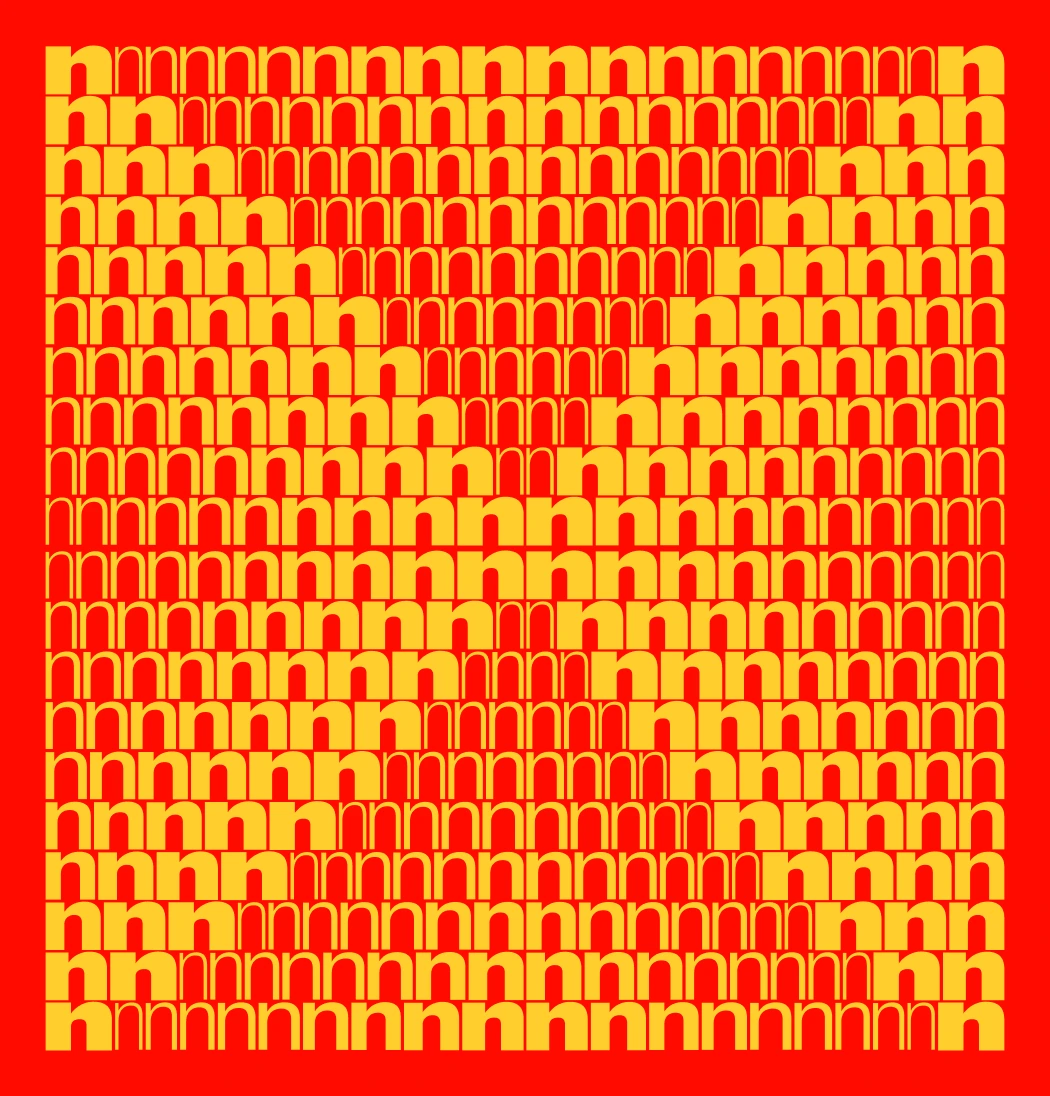
This groundbreaking digital experience, launched in anticipation of the Exat typeface’s full release in 2026, redefines how typefaces are presented and engaged with online. Commissioned by Hot Type, a publisher known for pushing the boundaries of contemporary typography, Studio Size, in collaboration with RISE2 Studio, has engineered a promotional platform that transforms the conventional font specimen into an immersive, interactive journey. The microsite showcases Exat, one of the most ambitious typeface releases slated for 2026, through dynamic interactions that treat typography as a living, responsive entity rather than static decoration.
A New Paradigm in Typographic Presentation
The Exat variable font is not merely a collection of static styles; it is a meticulously crafted system designed to offer unparalleled flexibility and expression. Spanning Condensed, Normal, and Wide subfamilies across seven distinct weights, the typeface boasts an impressive 1,715 glyphs, supporting both Latin and Cyrillic scripts. Such a comprehensive and complex typographic offering demanded an equally innovative showcase. Studio Size’s response is a microsite that goes beyond traditional demonstrations, inviting users to directly manipulate and experience the font’s vast capabilities through intuitive, behavioral interactions.
The core philosophy guiding the microsite’s design is that interaction should be intrinsic to understanding the typeface. Each section of the site is engineered to introduce a specific axis of the type system, transitioning smoothly before any sense of repetition sets in. A pivotal design choice is the direct correlation between scroll position and the state of the typography. This means that reversing a scroll motion instantly restores previous forms and interactions, offering a seamless and intuitive exploratory experience that feels more like playing an instrument than navigating a webpage. The site intelligently balances moments of calm, legible reading with dense, expressive displays, effectively managing visual fatigue while demonstrating the full expressive range of the Exat system.
The Exat Typeface: A Modernist Legacy Reimagined
The Exat typeface itself is a monumental undertaking, distinguished by its expansive stylistic range and its profound historical inspiration. Its name and aesthetic spirit are derived from EXAT 51, a Croatian modernist collective active in the early 1950s. This collective, whose name is an acronym for Experimental Atelier 51, was a pivotal force in Yugoslav art and design, advocating for the synthesis of art and life, and promoting experimental approaches in painting, sculpture, architecture, and graphic design. EXAT 51’s members, including figures like Vjenceslav Richter, Ivan Picelj, and Aleksandar Srnec, championed geometric abstraction, constructivism, and functionalism, challenging the prevailing academic and socialist realist dogmas of their time. They believed in the integration of different artistic disciplines and the application of artistic principles to industrial design and everyday life, viewing design as a tool for social progress.
Exat Variable Font Microsite Redefines Type as a Living System
The Exat typeface encapsulates this spirit of modernist experimentation and geometric rigor. Its clean lines, precise angles, and adaptable forms echo the constructivist principles that EXAT 51 championed. By drawing inspiration from such a significant historical movement, Hot Type imbues Exat with a legacy of innovation and a commitment to pushing artistic and functional boundaries. This historical context is crucial for understanding the typeface’s design rationale, linking its contemporary flexibility to a modernist heritage of structured creativity and systematic design. The 21 distinct styles, meticulously crafted across various weights and widths, are not arbitrary but rather a contemporary interpretation of EXAT 51’s foundational ideas, translated into the digital realm of variable fonts.
Studio Size’s Vision: Typography as Dynamic Behavior
Studio Size’s approach to designing the microsite was to transcend the conventional display of font samples. Their central tenet, "typography as behavior rather than decoration," manifests throughout the site, transforming passive viewing into active engagement. This philosophy is most vividly demonstrated in the microsite’s opening sequence: a mesmerizing glyph grid. Here, a field of lowercase characters dynamically responds to the user’s cursor position. As the cursor moves, characters within seven concentric rings of influence shift in weight and color. The outermost ring renders characters in a subtle dark blue at their minimum weight, gradually transitioning to vibrant red at maximum weight for characters closest to the cursor. This immediate, intuitive feedback loop requires no instructional text; the behavior is self-explanatory, drawing users into an exploratory dance with the typeface’s inherent variability.
Further interactive demonstrations deepen the user’s understanding of Exat’s capabilities. A dedicated "Design Space" section facilitates controlled comparisons. By simply hovering over style names, users can witness specimen text morphing seamlessly between different weights and widths in real-time. This interactive comparison highlights the fluidity and range of the variable font technology, allowing designers to grasp the subtle nuances and dramatic shifts possible within the Exat family. Complementing these precise interactions, large numerals perform elegant sine-wave patterns, their movements intricately tied to the user’s scroll speed. This adds a temporal dimension to the experience without competing for attention with the typeface itself, subtly reinforcing the idea of dynamic transformation. Sparse, yet impactful, three-dimensional reveals punctuate the experience, serving as visual metaphors that reference the geometric and architectural spirit of EXAT 51 without overwhelming the page with unnecessary complexity. These carefully integrated elements ensure that the user’s journey through the microsite is not only informative but also aesthetically captivating and intellectually stimulating.
Technological Foundation: Powering the Interactive Showcase
The creation of the Exat microsite is a testament to sophisticated web development, leveraging a powerful combination of platforms and libraries to achieve its fluid, interactive nature. Developed on the robust WordPress content management system, the site benefits from its flexibility and extensibility. However, the true magic of the interactivity lies in its custom front-end development, executed by RISE2 Studio, an agency known for its technical prowess in complex web animations and interactive experiences.
The Variable Font Revolution
At the heart of Exat’s technological prowess is the variable font format. Introduced as part of the OpenType 1.8 specification in 2016, variable fonts represent a significant leap forward in digital typography. Unlike traditional static fonts, which require separate files for each style (e.g., regular, bold, italic), a variable font contains an entire range of styles within a single file. This is achieved by defining "axes" of variation—such as weight, width, slant, or optical size—along which the typeface can smoothly interpolate. For Exat, this means that its Condensed, Normal, and Wide subfamilies, across seven weights, are all accessible from a single, optimized file. The benefits are manifold:
Exat Variable Font Microsite Redefines Type as a Living System
1. Reduced File Size: A single variable font file is often significantly smaller than a collection of static font files covering the same range, leading to faster loading times and improved website performance.
2. Unparalleled Design Flexibility: Designers gain granular control over typographic parameters, allowing for custom instances of a typeface that precisely fit layout requirements or creative visions, moving beyond predefined styles.
3. Enhanced Responsiveness: Type can adapt dynamically to different screen sizes, resolutions, and even user interactions, ensuring optimal readability and aesthetic consistency across diverse devices.
4. Rich Animation Potential: The ability to smoothly interpolate between design variations opens up new avenues for typographic animation, as powerfully demonstrated by the Exat microsite.
The Architecture of Interactivity
To bring Studio Size’s vision to life, RISE2 Studio deployed a suite of cutting-edge JavaScript libraries. The GreenSock Animation Platform (GSAP) serves as the core animation engine. Renowned for its performance, reliability, and comprehensive feature set, GSAP is the industry standard for high-performance web animations. Its ability to animate virtually any CSS property, SVG, DOM attribute, or JavaScript object with precision and fluidity makes it ideal for the complex, synchronized movements seen on the Exat microsite.
Integrated with GSAP is ScrollTrigger, a powerful GSAP plugin that allows developers to create stunning scroll-based animations with remarkable ease and control. ScrollTrigger is instrumental in the microsite’s core functionality, where scroll position directly dictates typographic state. This allows for complex sequences of animations to be precisely synchronized with the user’s scrolling, creating a narrative flow that is both engaging and intuitive.
Finally, Lenis provides the smooth scrolling experience that underpins the entire interaction. Traditional browser scrolling can often feel abrupt or choppy, especially when dealing with intricate animations. Lenis, a lightweight JavaScript library, replaces the default scroll behavior with a custom, highly optimized smooth scrolling mechanism. This ensures that every scroll action feels fluid, natural, and perfectly synchronized with the GSAP and ScrollTrigger animations, contributing significantly to the microsite’s polished and premium feel. This combination of WordPress for content management, GSAP for animation, ScrollTrigger for scroll-based timing, and Lenis for smooth user input creates a robust and highly performant foundation for the immersive typographic showcase.
A Collaborative Endeavor: Voices Behind the Project
The success of the Exat microsite is a testament to the seamless collaboration between creative visionaries and technical experts. While no direct quotes are available at this pre-release stage, it is possible to infer the perspectives of the key players involved.
Hot Type, the font foundry, likely envisioned a promotional campaign that would truly reflect the ambition and innovation embedded in the Exat typeface. A representative from Hot Type might express: "When we embarked on developing Exat, our goal was to create a typeface that pushed the boundaries of modern typography, inspired by a rich historical lineage. We knew a traditional static specimen wouldn’t do it justice. We needed a showcase that was as dynamic and forward-thinking as the font itself, something that would allow designers to truly feel the versatility and power of variable fonts. Studio Size understood this vision implicitly, translating our typographic ambition into an unparalleled interactive experience."
Exat Variable Font Microsite Redefines Type as a Living System
Studio Size, the creative agency, would undoubtedly emphasize their commitment to user experience and storytelling through interaction. A designer from Studio Size might articulate: "Our philosophy is to treat digital interfaces not just as canvases, but as stages for engaging narratives. For Exat, we saw an opportunity to move beyond merely displaying type to creating an interactive behavior system. We aimed to make the user an active participant in the discovery of the typeface, allowing them to intuitively grasp its complex variability without explicit instruction. The inspiration from EXAT 51 wasn’t just aesthetic; it was about embracing experimental approaches and challenging conventional presentation formats."
RISE2 Studio, the development partner, would highlight the technical challenges and achievements in bringing such a complex vision to fruition. A lead developer from RISE2 Studio might state: "The Exat microsite presented a fascinating technical challenge. Integrating GSAP, ScrollTrigger, and Lenis within a performant WordPress environment, while ensuring pixel-perfect animations and smooth user interactions, required meticulous engineering. Our focus was on optimizing every interaction to be instantaneous and fluid, making the technology disappear so that the user could fully immerse themselves in the typographic experience. It’s a prime example of how robust development can elevate a creative concept to a new level of digital craftsmanship."
Industry Implications: Setting a New Standard
The Exat variable font microsite by Studio Size and RISE2 Studio is poised to set a new benchmark in several key areas of the digital creative industry.
Firstly, for font marketing and promotion, this microsite represents a paradigm shift. Traditional font specimen PDFs or static web pages, while informative, often fail to convey the dynamic potential of complex typefaces, especially variable fonts. The Exat microsite demonstrates that truly interactive and experiential platforms are not just desirable but essential for showcasing the full capabilities of modern typographic innovations. It illustrates how a font’s story, its functionality, and its aesthetic range can be communicated through engaging behavior rather than just visual display. This could inspire other foundries to invest in more sophisticated digital showcases, driving a wave of innovation in font presentation.
Secondly, for web design and user experience (UX), the microsite offers a masterclass in elegant interaction. Its seamless scroll-driven narratives, cursor-reactive elements, and judicious use of 3D effects prove that complex interactivity can be intuitive and non-fatiguing. The careful balance between expressive and calmer sections, designed to manage "visual fatigue," provides a valuable lesson in designing long-form interactive experiences. This project exemplifies how a deep understanding of user psychology, combined with cutting-edge front-end development, can create highly memorable and effective digital products. It will likely be studied by web designers and developers as an example of best practices in interactive storytelling and performance optimization.
Exat Variable Font Microsite Redefines Type as a Living System
Thirdly, the project underscores the growing importance of variable fonts in the broader design landscape. As browser support for variable fonts matures and designers increasingly leverage their flexibility, the demand for sophisticated tools and showcases will only grow. The Exat microsite serves as a powerful demonstration of what’s possible with this technology, potentially accelerating its adoption across web design, branding, and digital publishing.
Finally, this project is a significant contribution to the conversation around digital craftsmanship. It showcases a high level of detail, precision, and artistic vision in both typography and web development. It bridges historical artistic movements (EXAT 51) with contemporary digital technology, proving that innovation can be deeply rooted in a rich cultural past. The Exat microsite is not just a promotional tool; it is a work of digital art that celebrates the evolving relationship between type, technology, and human interaction.
The Road Ahead: Evolution of Digital Typography
As the digital landscape continues to evolve, the Exat variable font microsite stands as a beacon for the future of interactive design and typographic presentation. Its innovative approach to showcasing a complex typeface through intuitive, behavioral interactions offers a glimpse into a future where digital experiences are increasingly immersive, personalized, and dynamically responsive. The collaboration between Hot Type, Studio Size, and RISE2 Studio has not only launched an ambitious new typeface but has also set a new standard for how we interact with and appreciate the artistry of typography in the digital age. This project suggests that the evolution of digital typography will be marked not just by new font designs, but by the innovative ways these designs are brought to life through interactive storytelling and cutting-edge web technologies. The journey to explore the Exat variable font begins at exat.hottype.co, with a comprehensive case study available on Codrops, offering further insights into its groundbreaking development.